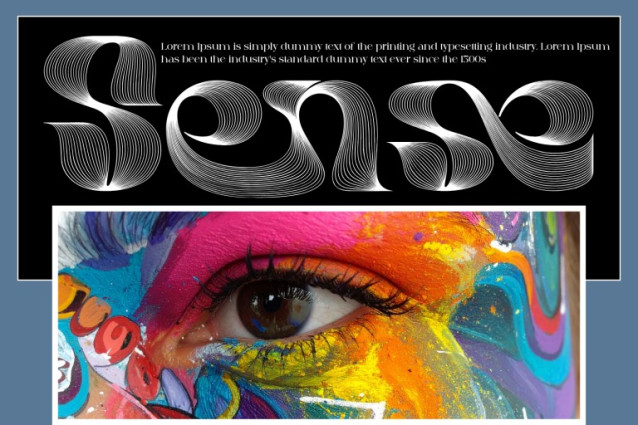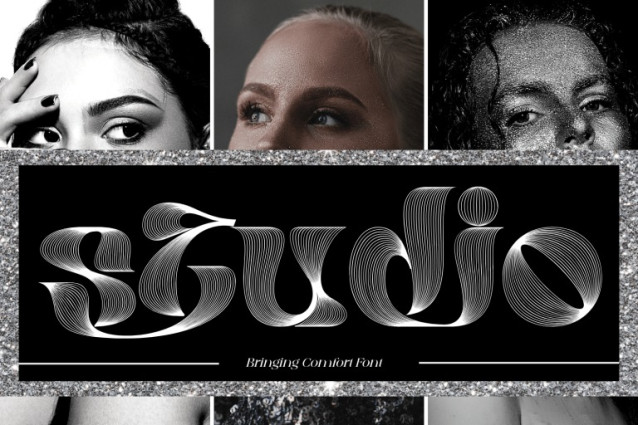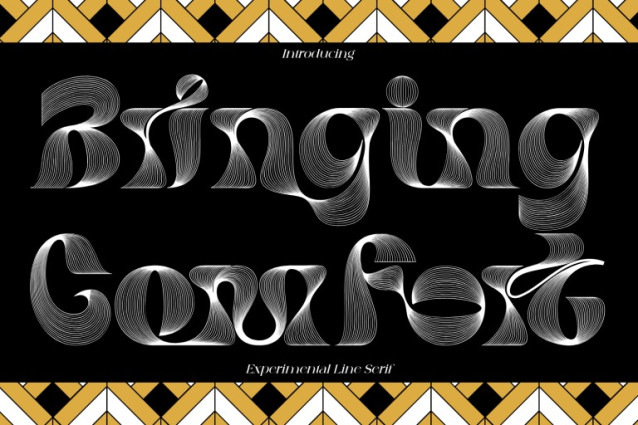
Bringing Comfort Font
Bringing Comfort – Line Art Font is an experimental line-art display font inspired by optical illusions, kinetic movement, and abstract graphic design. Built with flowing parallel lines and sculptural letterforms, this typeface creates a striking sense of depth, rhythm, and motion. Its organic curves and layered linear details give each character a bold artistic personality, making Bringing Comfort perfect for posters, album covers, fashion editorials, art branding, packaging, and creative visual identities.
🔤Features:
Uppercase & Lowercase Letters
Around 100 Special Ligatures & Alternates
Accented Characters for multilingual support
🔤About 100 ligatures combined with Stylistic Alternates Font: